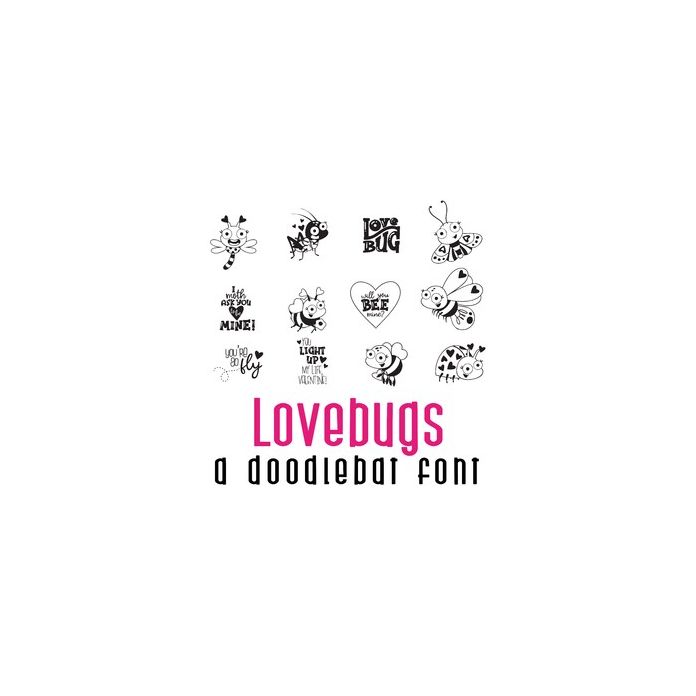
This adorable doodlebat font features 26 little love bugs and puns perfect for Valentines! Use this collection of images for cards, crafts, gifts, decor, parties, classrooms, planner stickers, scrapbook pages and more!